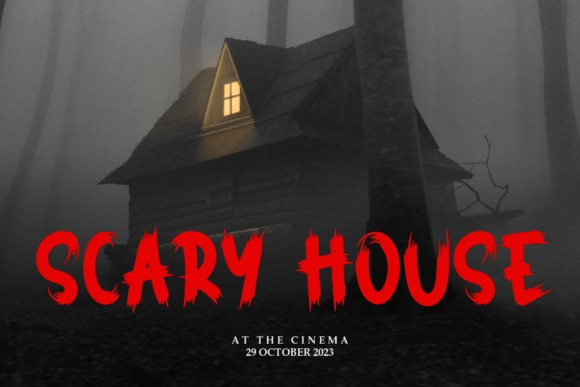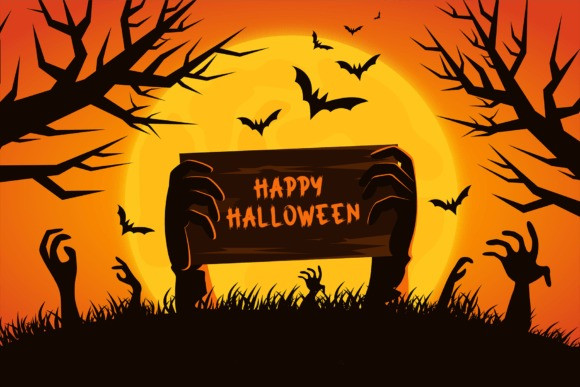
Spooky Scary Font
Spooky Scary Font is a spooky horror themed display font. It is perfect for use on Halloween Related designs, posters, invitations and so much more.